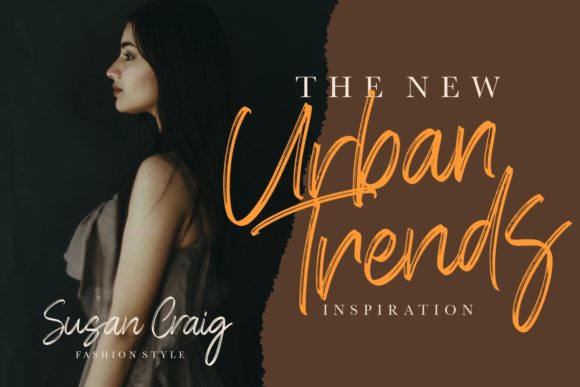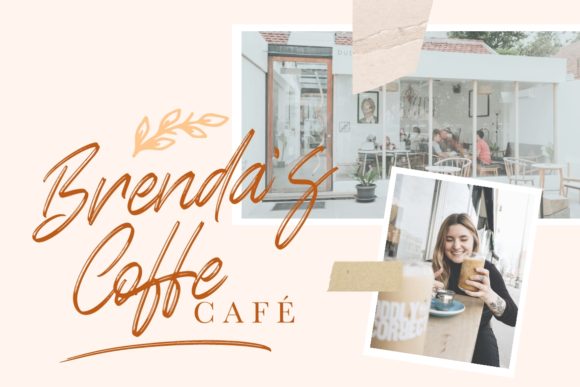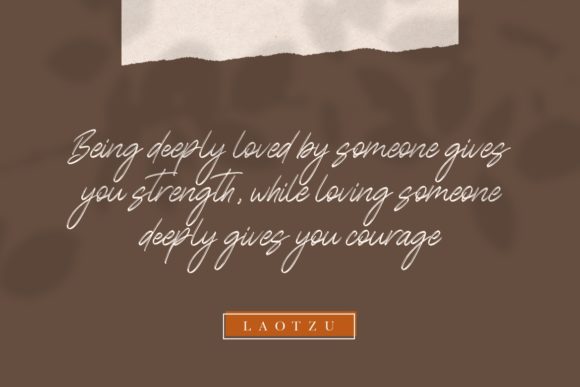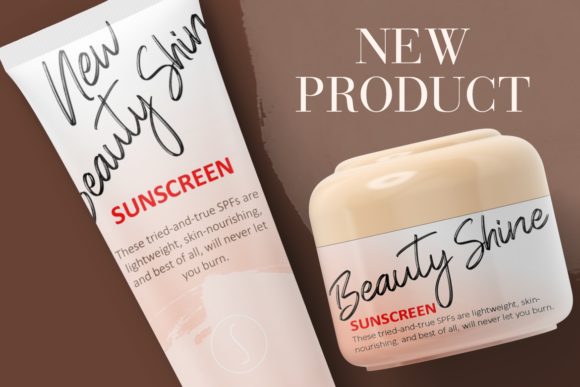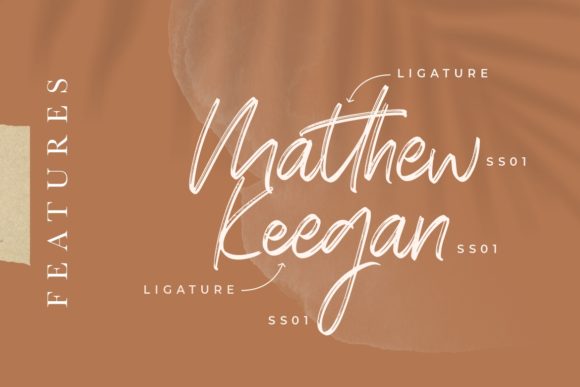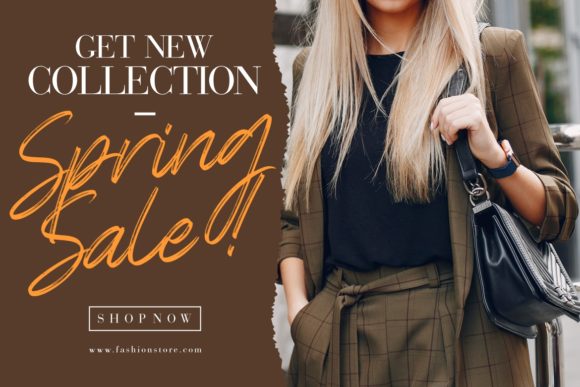
Introducing Brokllyng Font: The Ultimate Brush Style Handwritten Font for Designers and Crafters
Are you tired of using the same old fonts for your designs? Do you want to create something truly unique and eye-catching? Look no further than Brokllyng Font, a spectacular brush style handwritten font that’s perfect for making original and outstanding designs. In this article, we’ll take a closer look at Brokllyng Font, its features, and how it can elevate your design game.
What is Brokllyng Font?
Brokllyng Font is a beautiful, brush-style handwritten font that’s designed to add a touch of elegance and sophistication to your designs. With its unique and distinctive style, Brokllyng Font is perfect for designers, crafters, and anyone looking to create stunning visual content. Whether you’re working on a logo, branding project, social media graphics, or any other design project, Brokllyng Font is sure to impress.
Key Features of Brokllyng Font
So, what makes Brokllyng Font so special? Here are some of its key features:
• Brush Style Handwritten Font: Brokllyng Font is a beautiful, brush-style handwritten font that’s designed to look like it was created with a brush. This gives it a unique, organic feel that’s perfect for creating stunning designs.
• PUA Encoded: Brokllyng Font is PUA (Private Use Area) encoded, which means you can access all of the glyphs and swashes with ease. This makes it easy to use and customize the font to suit your needs.
• Original and Outstanding Designs: With Brokllyng Font, you can create original and outstanding designs that are sure to impress. Whether you’re working on a logo, branding project, or social media graphics, Brokllyng Font is the perfect choice.
Benefits of Using Brokllyng Font
So, why should you use Brokllyng Font for your designs? Here are some of the benefits of using this amazing font:
• Unique and Eye-Catching Designs: With Brokllyng Font, you can create unique and eye-catching designs that are sure to stand out from the crowd.
• Easily Customizable: Brokllyng Font is PUA encoded, which makes it easy to customize and access all of the glyphs and swashes.
• Perfect for Designers and Crafters: Brokllyng Font is perfect for designers, crafters, and anyone looking to create stunning visual content.
• Time-Saving: With Brokllyng Font, you can save time and effort by using a font that’s already designed to look great.
Font Name Brokllyng Font
Author CreatypeStudio
In conclusion, Brokllyng Font is a spectacular brush style handwritten font that’s perfect for making original and outstanding designs. With its unique and distinctive style, PUA encoding, and ease of use, Brokllyng Font is a must-have for designers, crafters, and anyone looking to create stunning visual content. So why wait? Download Brokllyng Font today and take your designs to the next level!
Q: What is Brokllyng Font?
A: Brokllyng Font is a spectacular brush style handwritten font.
Q: Is Brokllyng Font PUA encoded?
A: Yes, Brokllyng Font is PUA encoded.